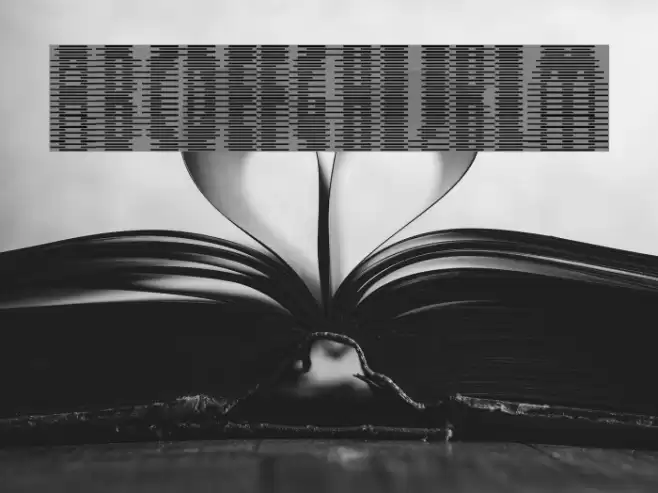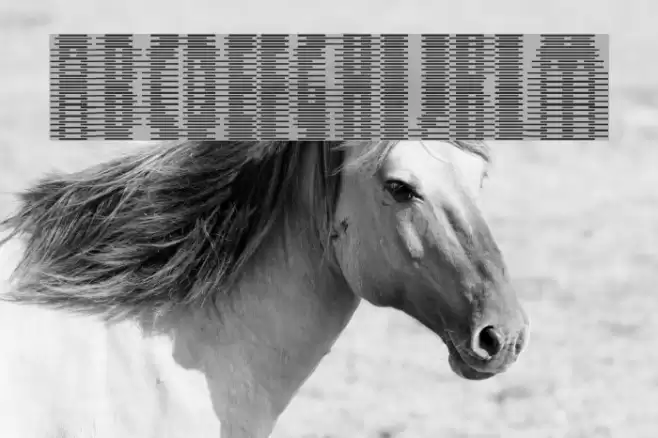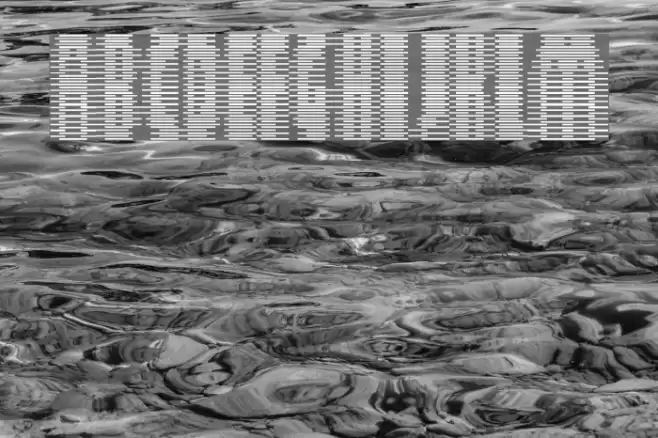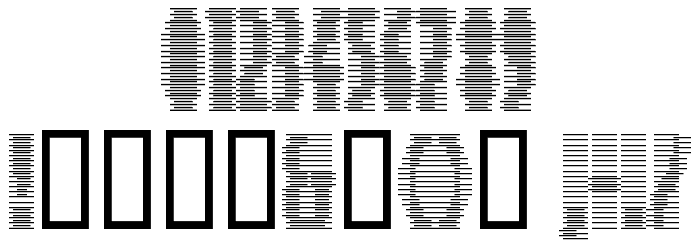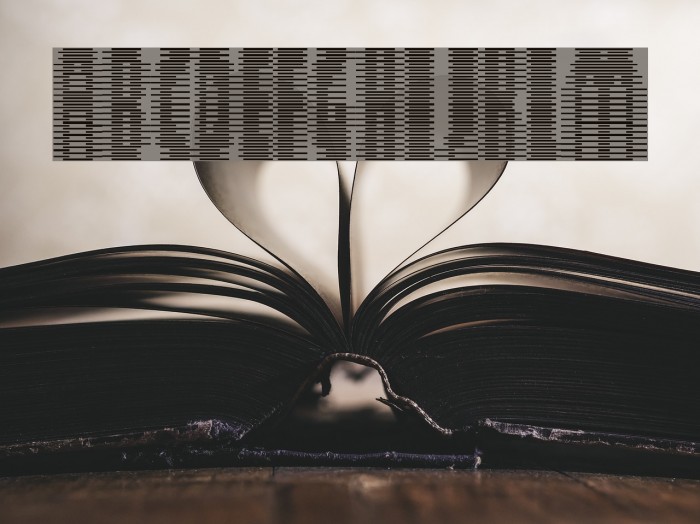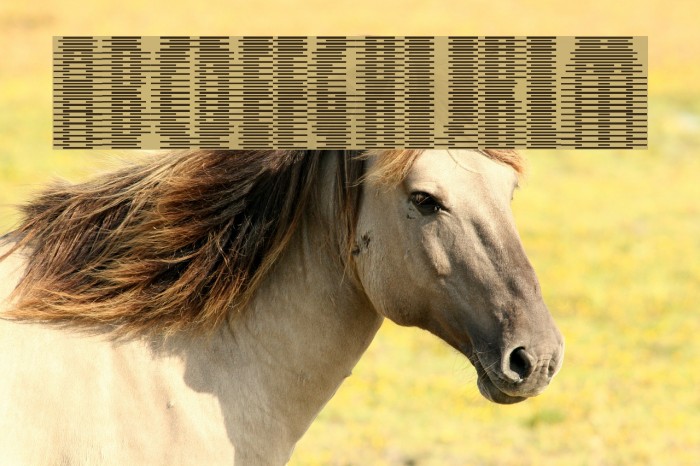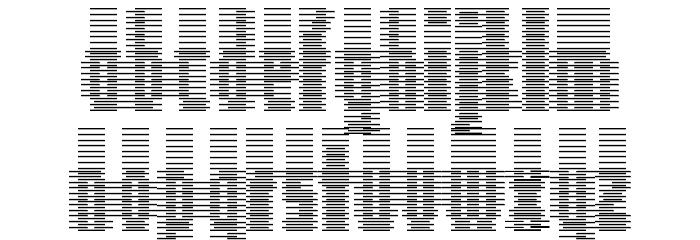
Deeter Font
Deeter Description
This font features a unique, decorative style characterized by horizontal lines that create a textured effect across each character. The design is bold and eye-catching, making it suitable for projects that require a strong visual impact. The uppercase and lowercase letters maintain a consistent style, with the horizontal lines adding a sense of movement and dynamism. The numbers and special characters follow the same pattern, ensuring uniformity throughout the typeface. This font's distinct appearance makes it ideal for creative and artistic projects.
A decorative font with horizontal line textures for a bold visual impact from Uncategorized fonts.
- Proposed Projects: Ideal for posters, album covers, branding, and any project needing a striking, artistic touch.